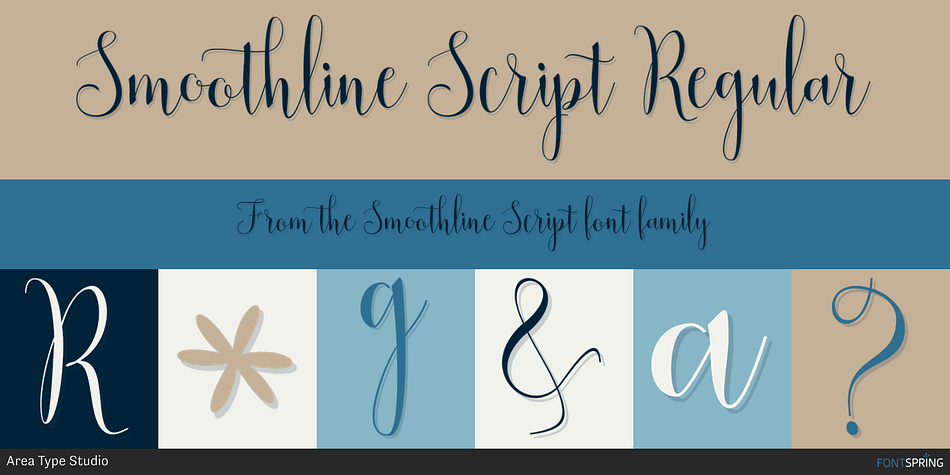
Smoothline Script Regular
Smoothline Script is a script and modern calligraphy font published by Area Type Studio.
Smoothline Script is a modern calligraphy font, with characters dance along the baseline and elegant touch.
Smoothline Script is a modern calligraphy font, with characters dance along the baseline and elegant touch. This font includes almost 421 glyphs and opentype features with stylistic alternates, ligatures and multiple language support.
Smoothline Script can be used for various purposes such as logos, wedding invitation, heading, t-shirt, letterhead, signage, lable, news, posters, badges etc.